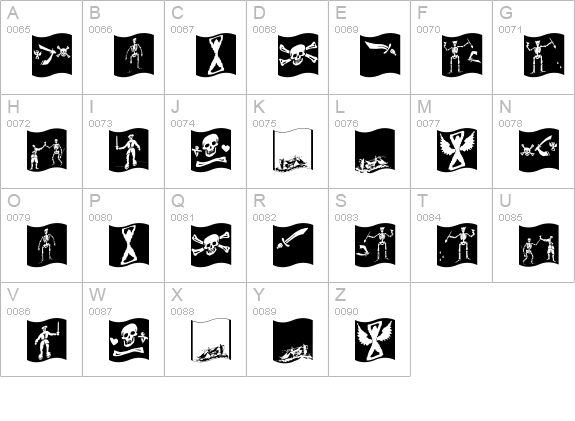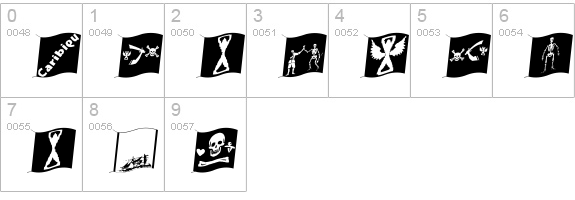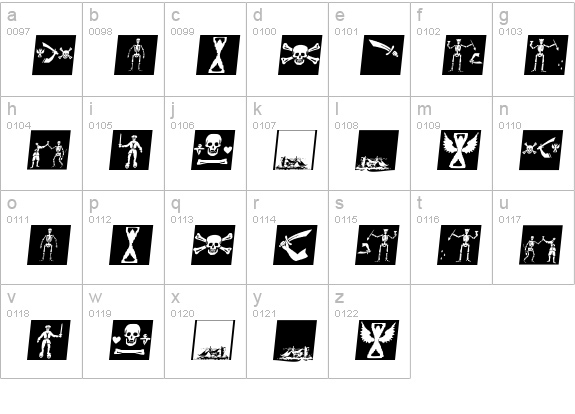
PiratsSymbolsArtefacts Font Details
PiratsSymbolsArtefacts font is a captivating typeface that exudes the spirit of adventure and mystery. Inspired by the world of pirates and their iconic symbols and artifacts, this font brings a touch of swashbuckling charm to any design project. With its intricate details and unique character shapes, PiratsSymbolsArtefacts font is perfect for adding a touch of intrigue to logos, posters, book covers, and more. Each letter and symbol is carefully crafted to evoke the sense of treasure maps, hidden treasures, and tales of the high seas. What sets PiratsSymbolsArtefacts font apart is that it is not only visually stunning but also conveniently free to use. This means that designers, artists, and enthusiasts alike can freely incorporate this font into their creative endeavors without any restrictions. It's a true treasure trove of possibilities! To access PiratsSymbolsArtefacts font, simply head over to FontsMarket.com, where it is freely available for download. With just a few clicks, you can unlock the power of this captivating font and embark on your own design journey. So whether you're creating a pirate-themed event invitation, a vintage-inspired label, or a captivating website banner, PiratsSymbolsArtefacts font is sure to add that extra touch of authenticity and intrigue. Download it today and let your creativity set sail on the high seas of design possibilities.